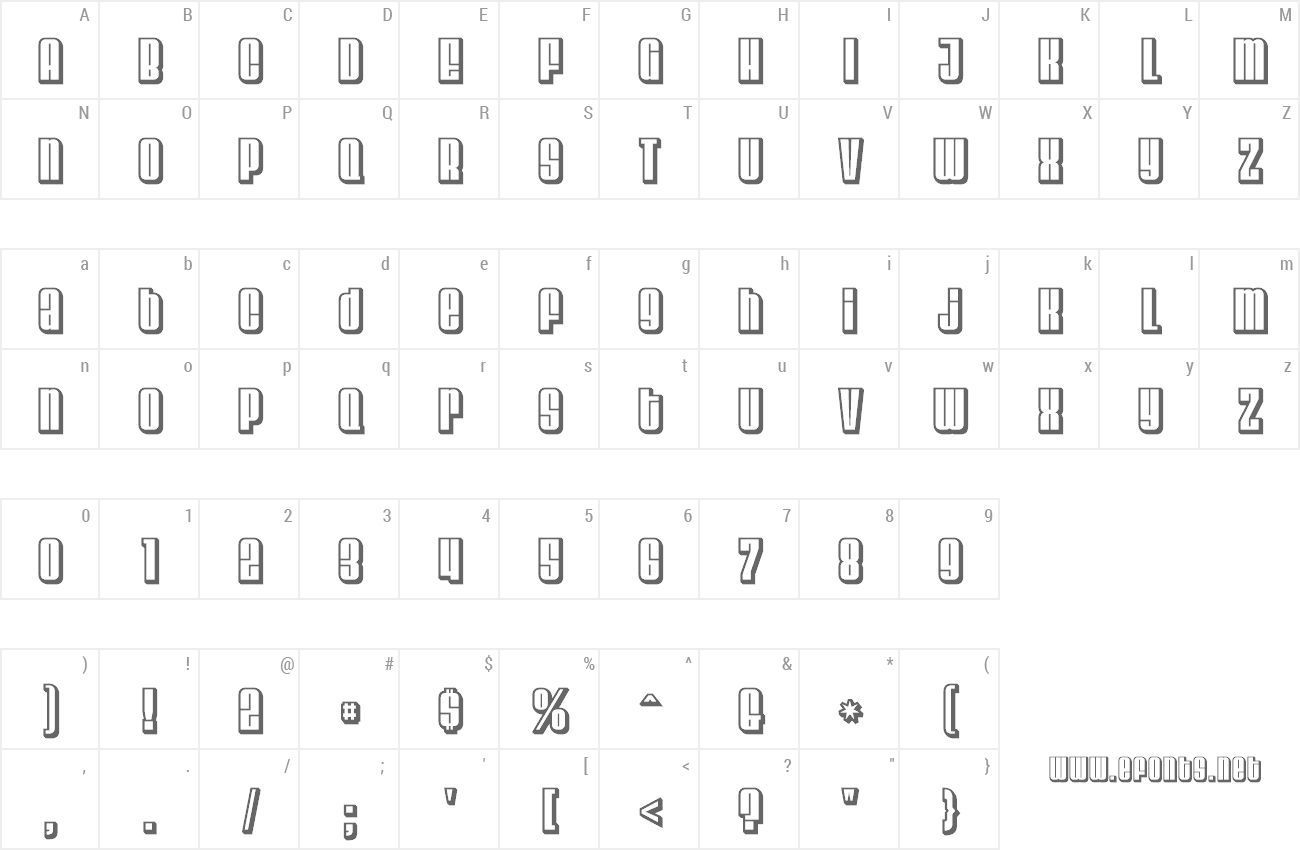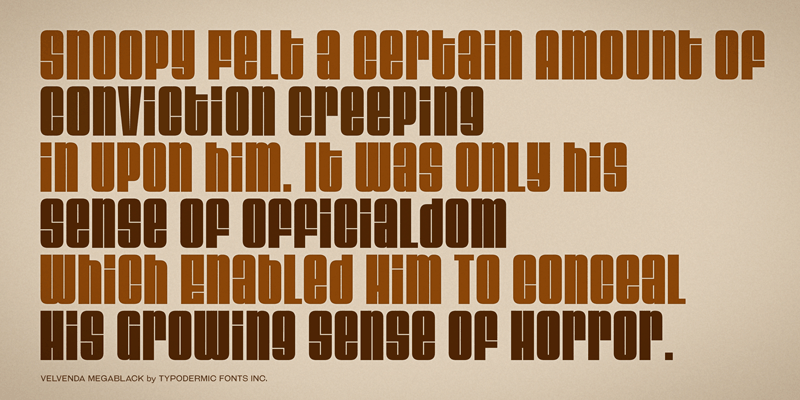
Velvenda is narrow . . . like your mind. Wake up, people. Wake up and smell the proverbial coffee. These fonts include a license that allows free commercial use: sometimes referred to as a desktop license. This allows you to install the fonts on a computer and use them to create posters, web graphics, game graphics, t-shirts, videos, signs, logos and more. Read the license agreement for details. If you'd like to embed these fonts in an app, ebook, on the web or anything that's not covered by the desktop license agreement, visit the link below. You'll find distributors who offer different types of licenses or you can contact me for help. http://typodermicfonts.com/velvenda/ |